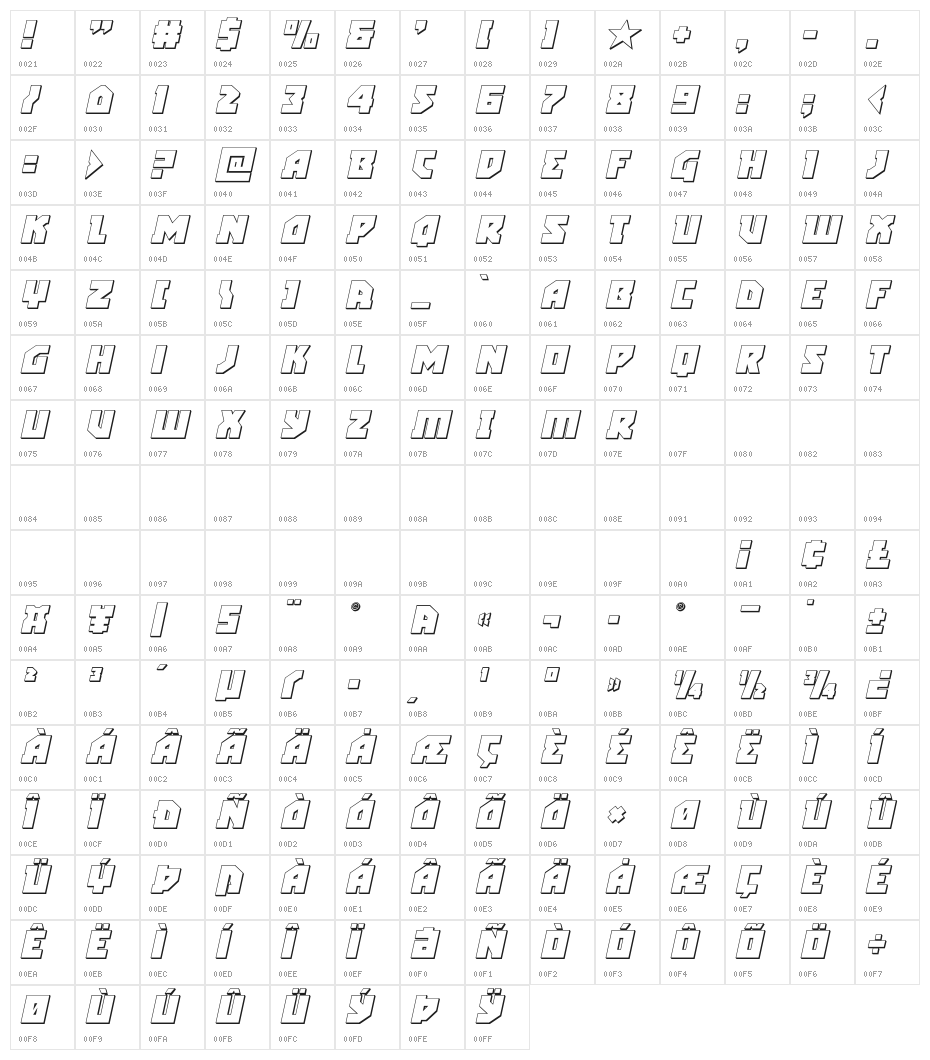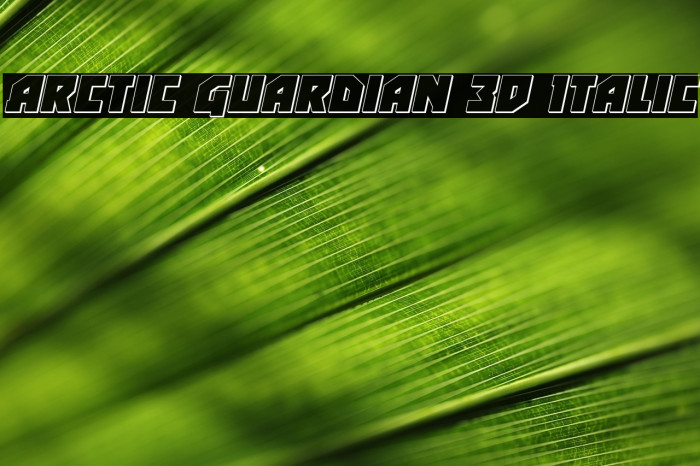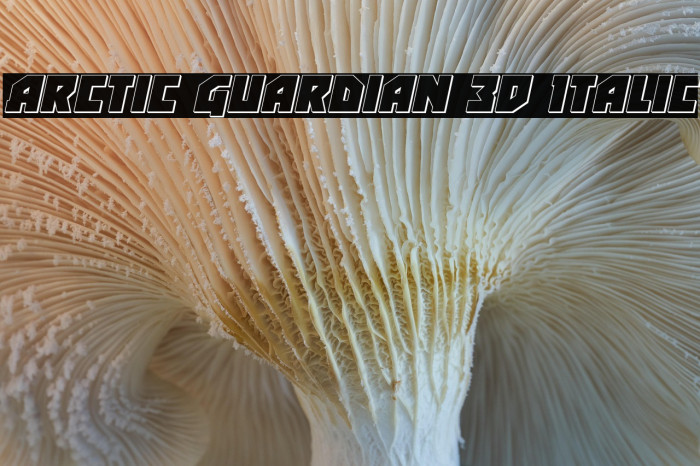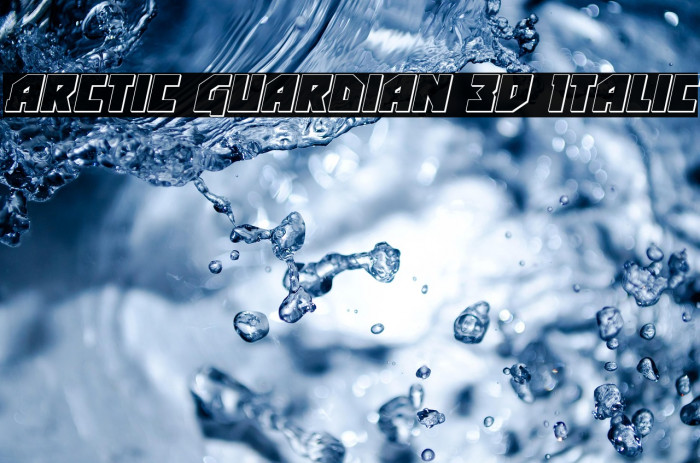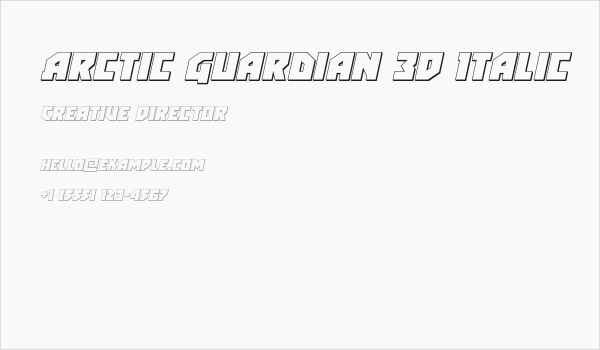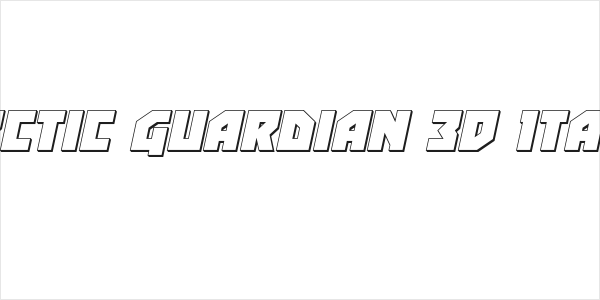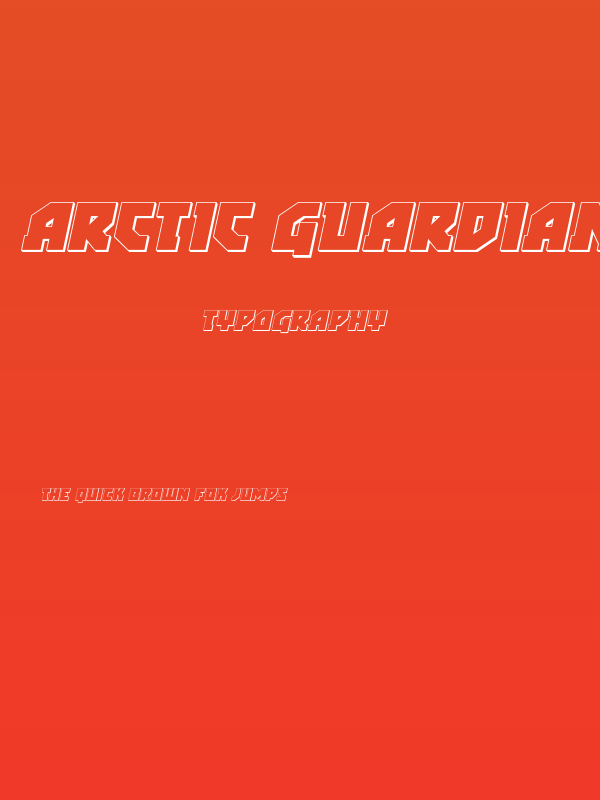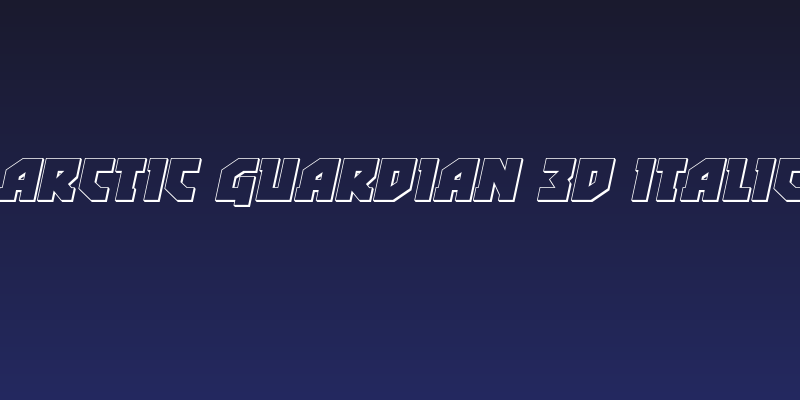
Arctic Guardian 3D Italic Font
Arctic Guardian 3D Italic Description
This font features a bold, three-dimensional design with a strong italic slant, giving it a dynamic and futuristic appearance. The characters are blocky and angular, with a distinct shadow effect that enhances the 3D look. The uppercase letters are particularly striking, with sharp edges and a sense of movement. The numbers and special characters maintain the same bold style, ensuring consistency across all glyphs. This font is well-suited for projects that require a modern and impactful visual presence.
| Proposed Projects | Ideal for video game titles, sci-fi movie posters, tech branding, and dynamic advertising campaigns. |